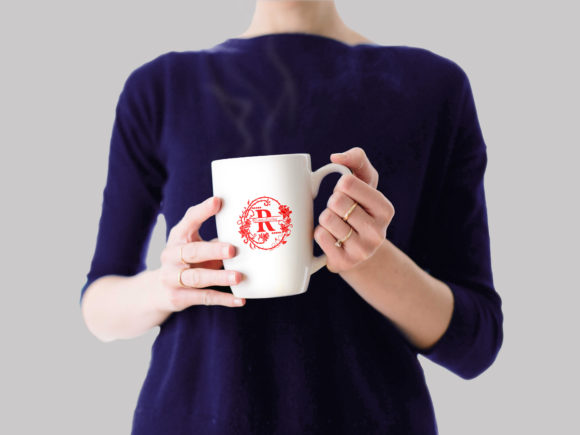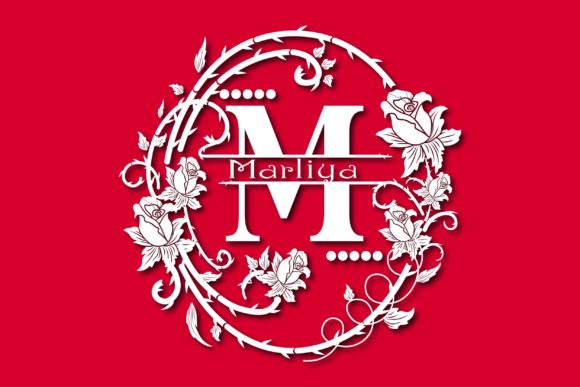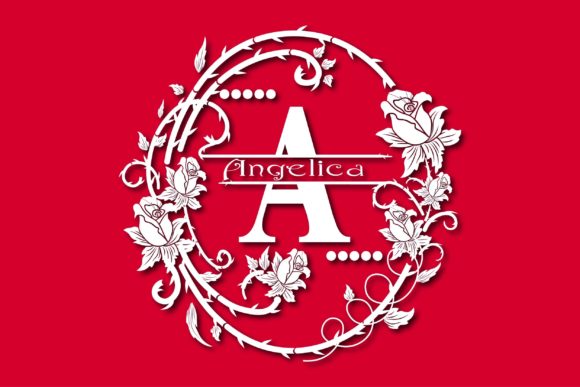
Introduction to Rosediana Font Font
Fonts play a crucial role in design, and the Rosediana Font font is a typeface that brings both character and versatility to any project. Whether you’re working on a branding project, a website, or a print design, the Rosediana Font font offers a unique style that can elevate your work.
Rosdiana Monogram is a beautiful, unique, and romantic decorative font, suitable for your design material with the theme of love and affection.
Use it for any item that needs splendid typography .
Key Features of Rosediana Font Font
Why Choose Rosediana Font Font?
The Rosediana Font font is more than just a typeface – it’s a design tool that helps you communicate your message with style and clarity. Its unique character set and versatile design make it suitable for a wide range of applications, from elegant invitations to bold headlines.
With its carefully crafted letterforms and balanced proportions, the Rosediana Font font ensures readability and visual appeal across all mediums.
What makes Rosediana Font font special?
The Rosediana Font font stands out with its unique design, exceptional readability, and versatility across various design applications.